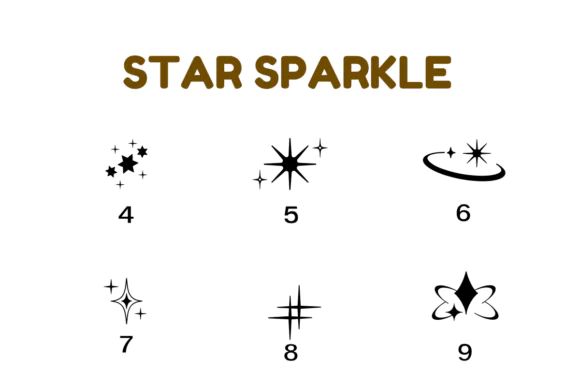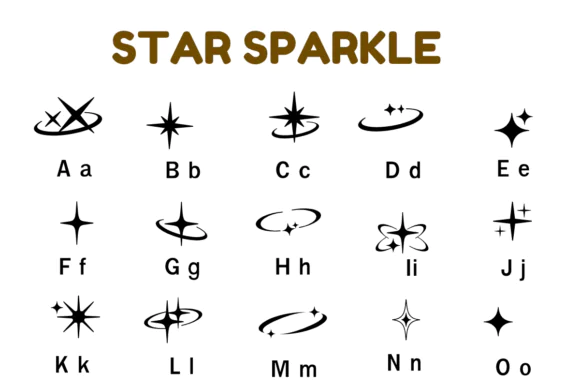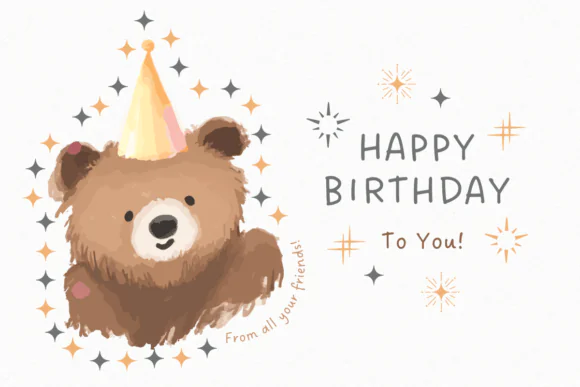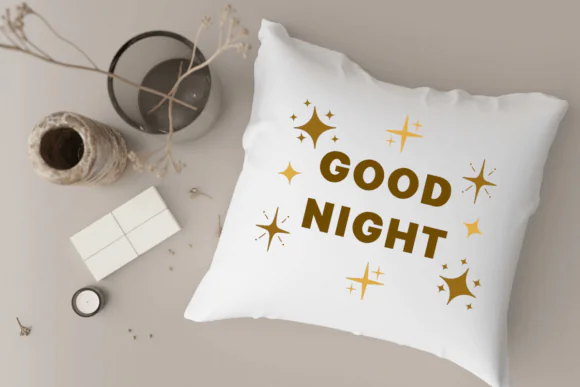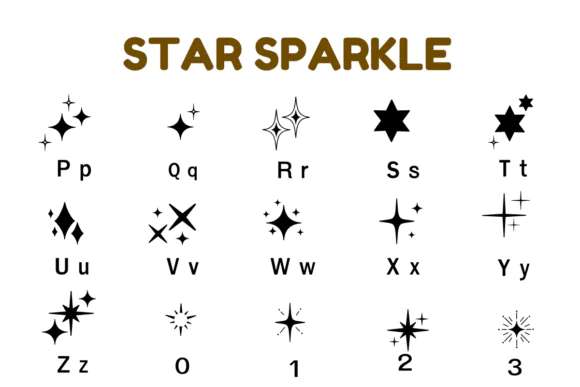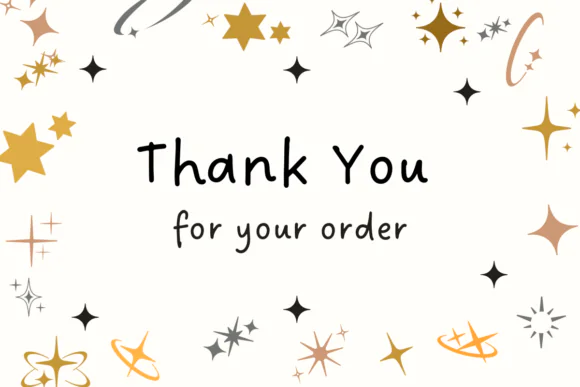
Star Sparkle Dingbat Font | Celestial Sparkle Typeface for Wedding Invitations, DIY Crafts, Decorations, Logos, Stickers, Wall Art & Magical Creative Designs
Add a magical celestial touch to your creative projects with Star Sparkle Font, a charming dingbat font filled with starry and sparkle-inspired decorative elements. With its dreamy celestial theme, this font is perfect for designs that need a soft, magical, elegant, and eye-catching look.
Star Sparkle Font is ideal for designers, crafters, wedding stationery creators, DIY makers, small business owners, printable sellers, branding designers, and digital product creators who want a beautiful decorative font for adding sparkle details to their work. It can enhance many types of creative projects, including wedding invitations, crafts, decorations, logos, stickers, labels, wall art, greeting cards, planner pages, social media graphics, and printable designs.
This font is especially useful for celestial-themed artwork, magical branding, romantic stationery, spiritual designs, moon-and-star graphics, event decorations, and elegant craft projects. Whether you are creating a wedding invite, dreamy logo, starry sticker sheet, magical wall print, or decorative social media post, Star Sparkle Font adds instant charm and wonder to every design.
• Wedding invitations
• DIY crafts
• Decorations
• Logo designs
• Stickers and labels
• Greeting cards
• Wall art prints
• Planner decorations
• Celestial designs
• Magical branding
• Moon and star artwork
• Printable crafts
• Party invitations
• Digital design projects
Key Style Features
• Celestial-themed dingbat font
• Star and sparkle-inspired decorative style
• Magical and dreamy appearance
• Great for weddings, crafts, and decorations
• Perfect for logos and branding accents
• Easy to use for print and digital projects
• Ideal for romantic, mystical, and elegant designs
• Adds beautiful sparkle details to creative layouts